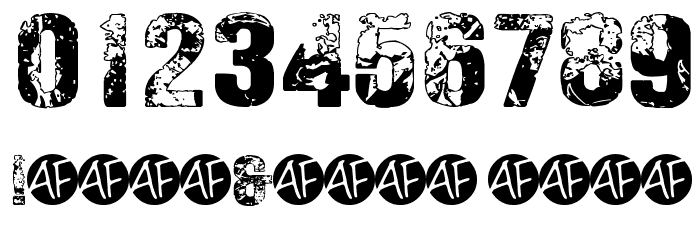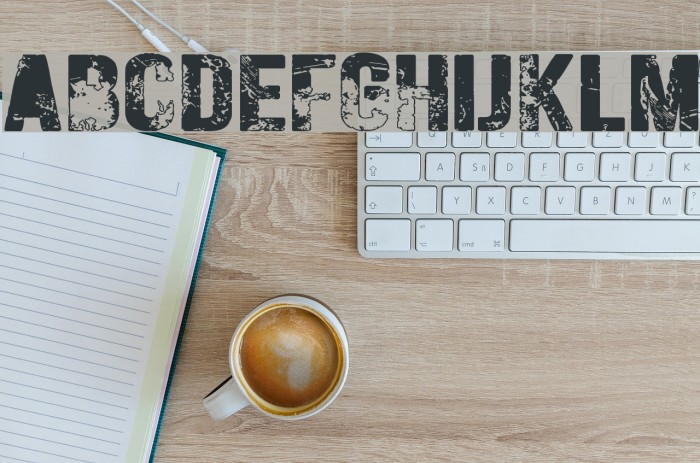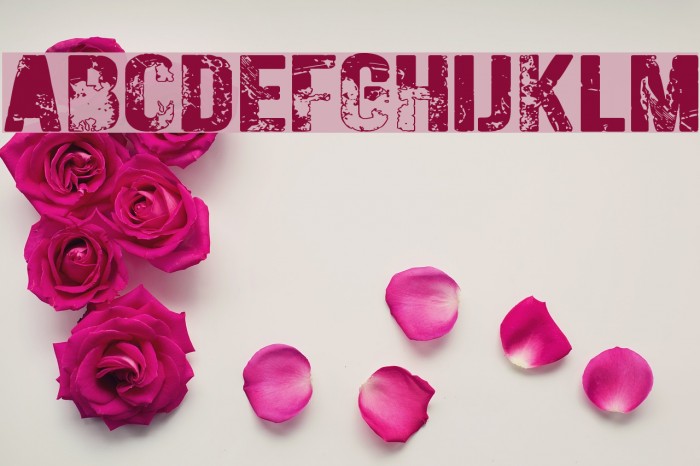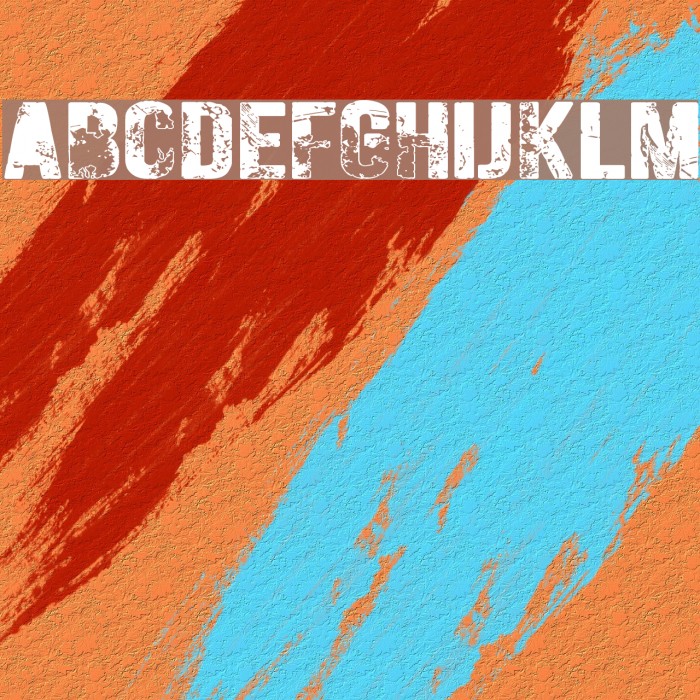
Hungry Ghosts Font
Hungry Ghosts Description
This font features a bold, distressed style with a textured, grunge appearance. The uppercase letters are robust and impactful, with a rough, weathered look that suggests wear and tear. The numbers and special characters maintain this rugged aesthetic, making them suitable for designs that require a gritty, urban feel. The font's unique texture gives it a dynamic and edgy character, perfect for projects that aim to convey a sense of rawness or authenticity.
A bold, distressed font with a grunge, textured appearance from Distorted Eroded fonts.
- Proposed Projects: Ideal for album covers, posters, streetwear branding, or any project needing a gritty, urban aesthetic.
- Overall Style: Grunge, Urban, Edgy